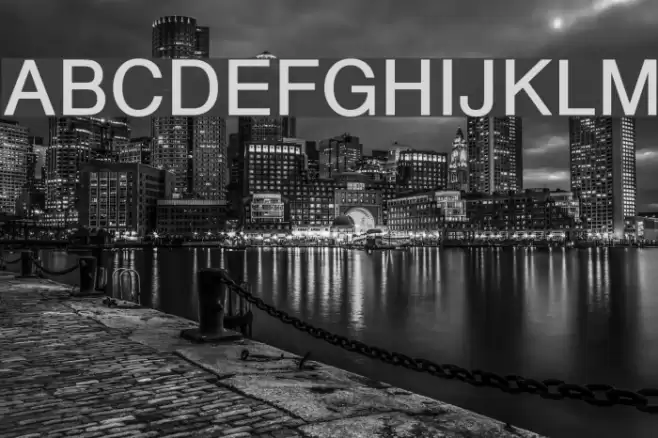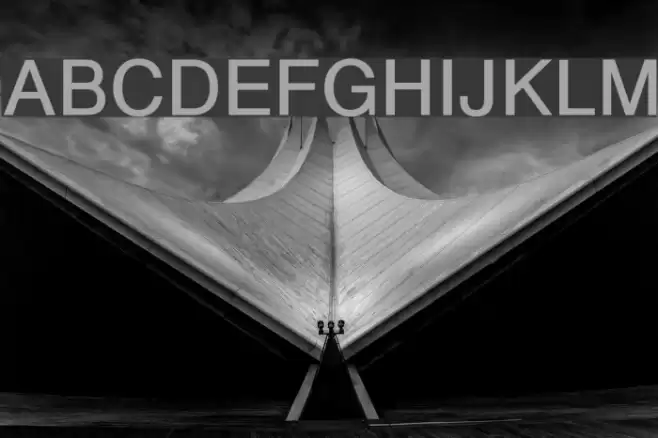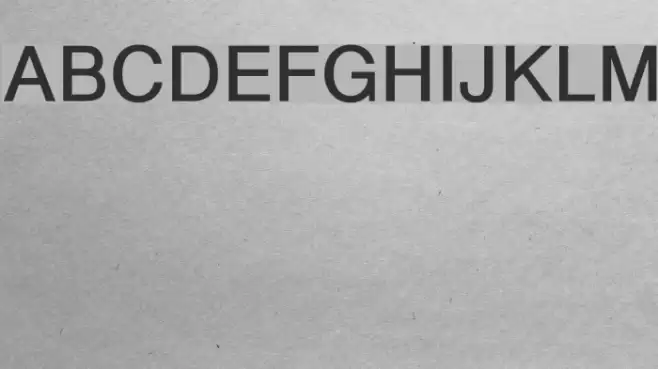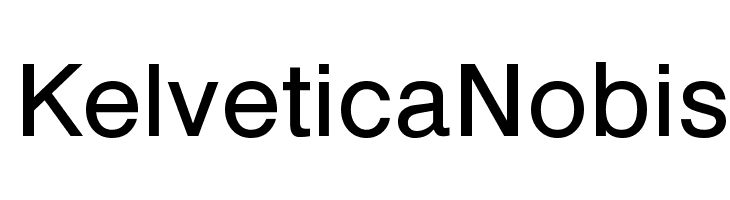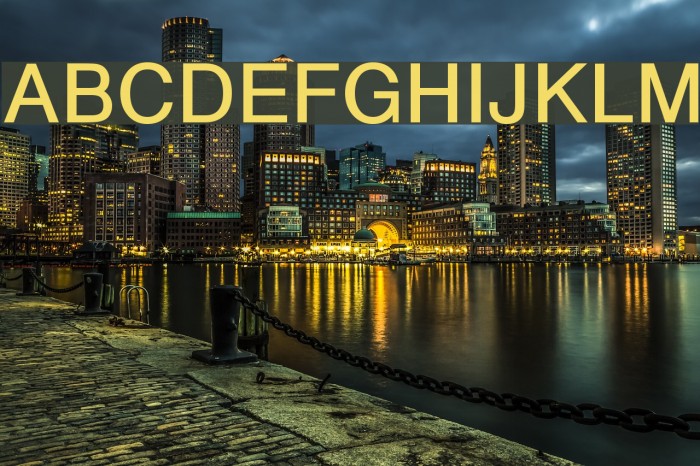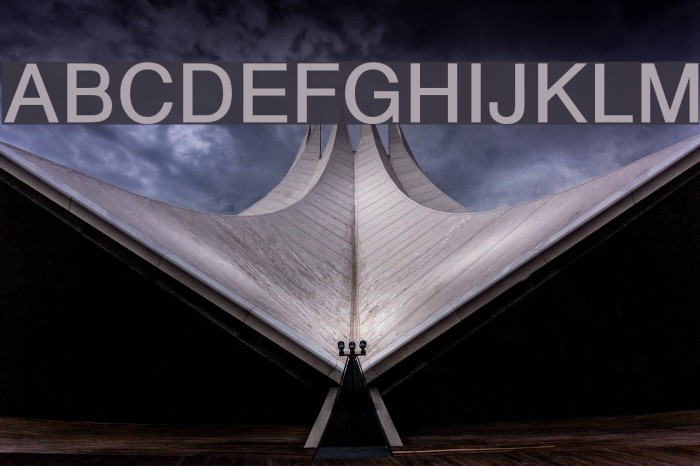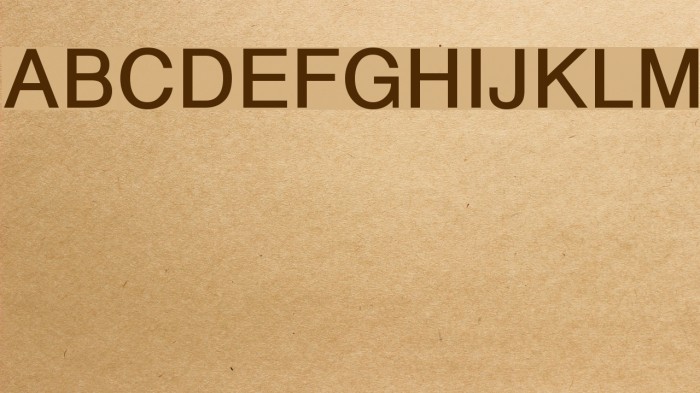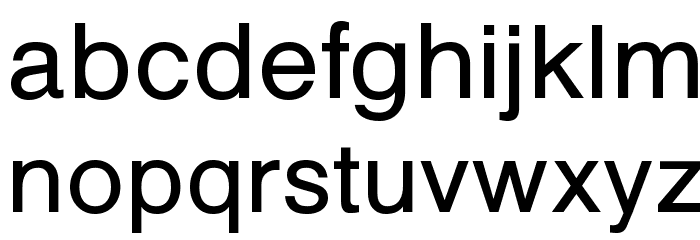
Kelvetica Nobis Font
Kelvetica Nobis Description
This font features a clean and modern sans-serif design, characterized by its straightforward and minimalist aesthetic. The uppercase and lowercase letters are well-proportioned, with consistent stroke widths that convey a sense of stability and clarity. The characters are evenly spaced, enhancing readability and making it suitable for a variety of applications. The absence of serifs gives it a contemporary feel, while the uniformity in letterforms ensures a cohesive look across different text sizes. The font's simplicity and elegance make it versatile for both digital and print media.
A modern, clean sans-serif font with uniform stroke widths and excellent readability from Uncategorized fonts.
- Proposed Projects: Ideal for branding, web design, advertising, and editorial layouts where clarity and modernity are key.